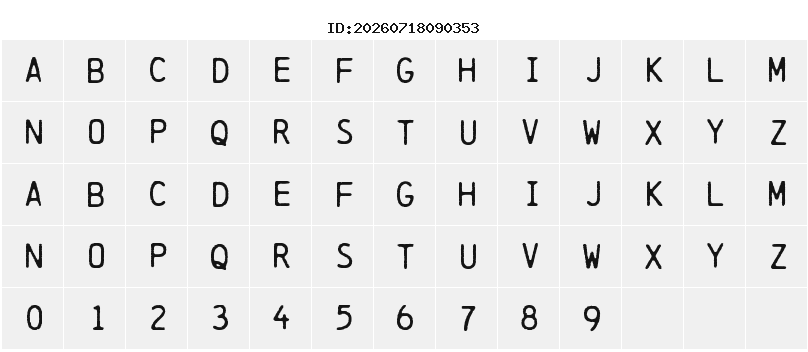
Chainprinter Preview
• Font Name: Chainprinter
• Designer: Ray Larabie
• Manufacturer: Ray Larabie
About Chainprinter.ttf
Chainprinter.ttf is a modern, elegant sans-serif font designed for ultimate readability and visual harmony. Perfect for branding, headlines, web design, and print materials.